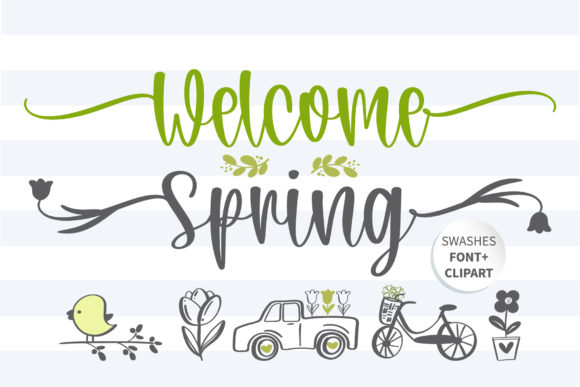
Let your creativity bloom with Welcome Spring, a script font family that exudes elegance and grace. Its delicate and refined strokes add a touch of sophistication to any design, making it the perfect choice for those seeking a unique and personalized touch.
Escape the ordinary and embrace the charm of Welcome Spring. Its flowing curves and playful swashes create a visually captivating experience that will leave a lasting impression. Step into a world of limitless possibilities, where your imagination takes center stage.
Welcome Spring is a versatile font family, equally at home on wedding invitations, thank you cards, and greeting cards as it is in logos, business cards, and social media graphics. Its adaptability knows no bounds, allowing you to create cohesive and visually stunning designs across various platforms and media.
With Welcome Spring, the power of expression is in your hands. Its PUA encoding grants you effortless access to a diverse range of glyphs and swashes, empowering you to add intricate details and flourishes to your designs. Unleash your creativity and let your message shine through with a font that speaks volumes.
Welcome Spring is more than just a font; it's an expression of your individuality and style. It's a chance to make a statement, to leave a lasting impression, and to create something truly remarkable. Embrace the beauty of Welcome Spring and let your designs bloom with elegance and charm.